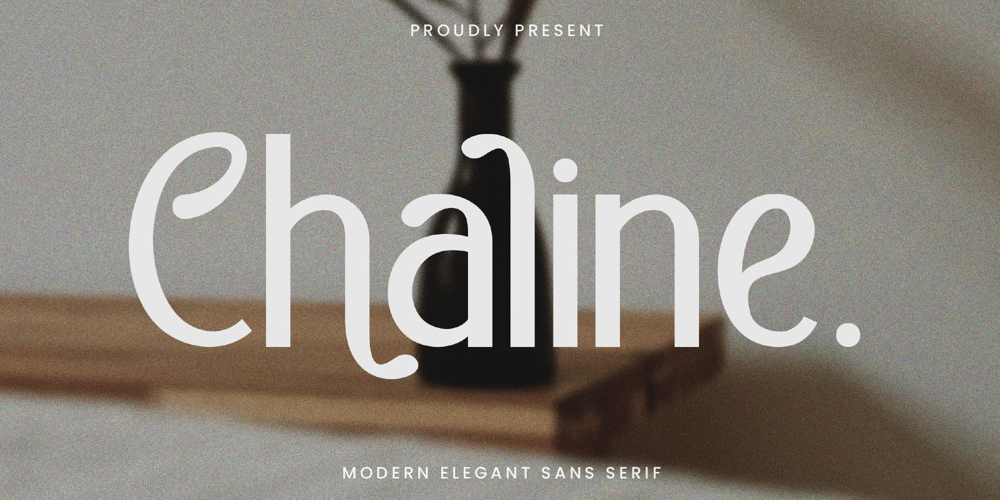
Chaline
Chaline font
Chaline Font Family was designed by Achmad Yani and published by Flawlessandco. Chaline contains 1 styles and family package options. Introducing “Chaline” – A Modern Elegant Sans Serif Font. Chaline is a refined and contemporary sans serif font that seamlessly blends sophistication with versatility.There’s some connected letters and some alternates that suitable for any graphic designs.This font support for some multilingual. Also contains uppercase A-Z and lowercase a-z, alternate character, numbers 0-9, and some punctuation.If you need help, just write me! Thanks so much for checking out my shop!